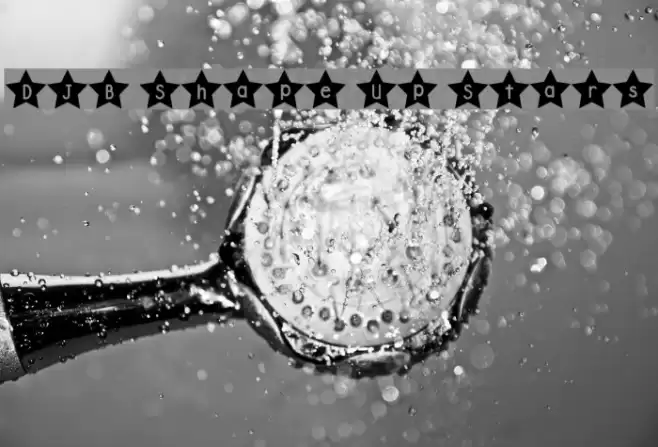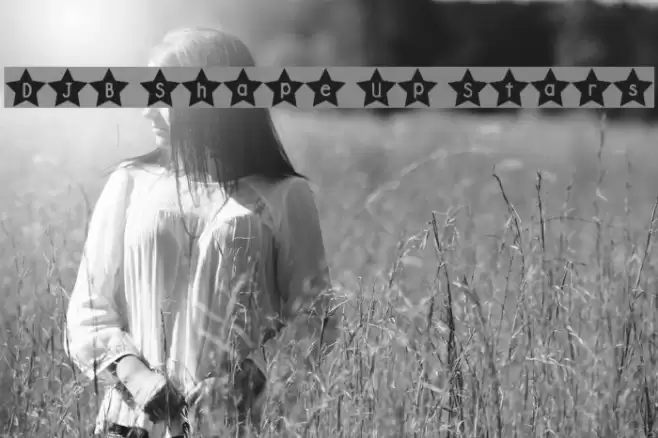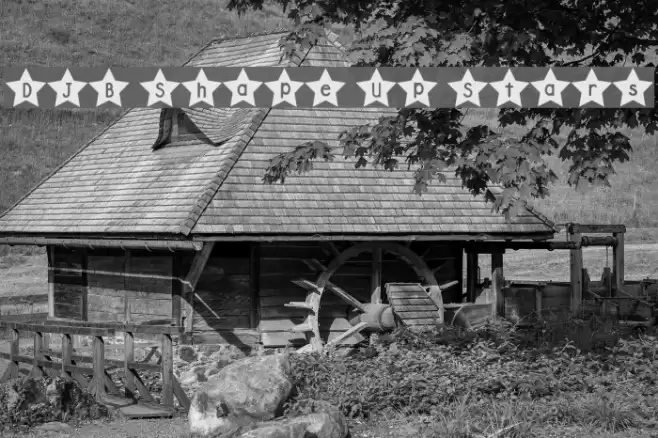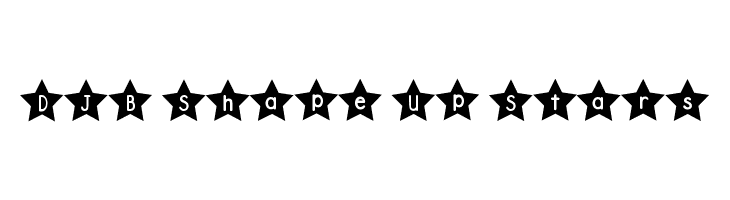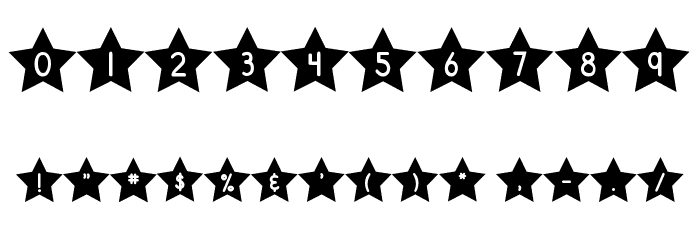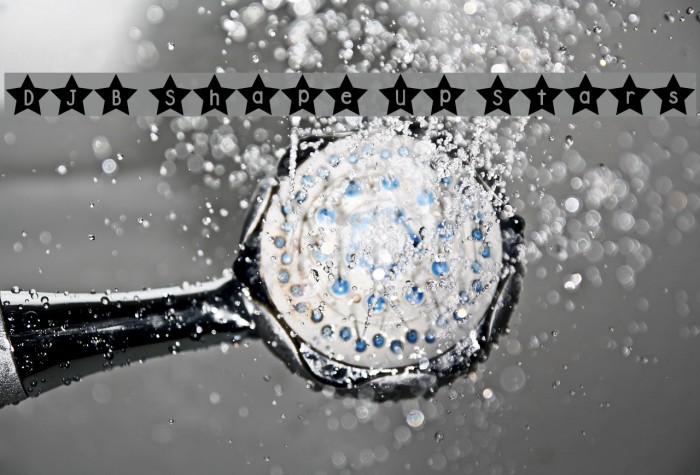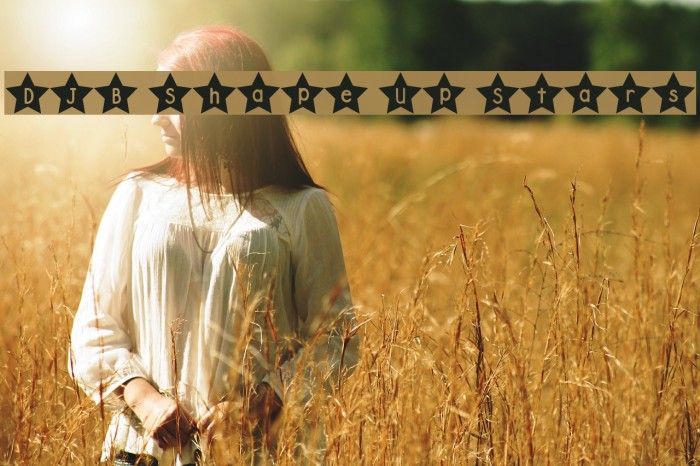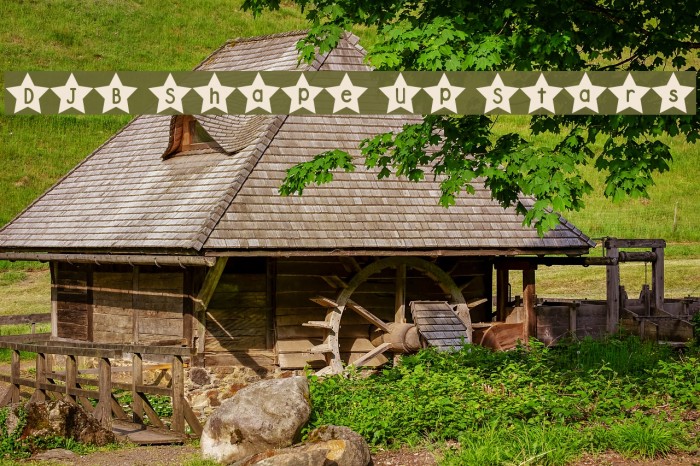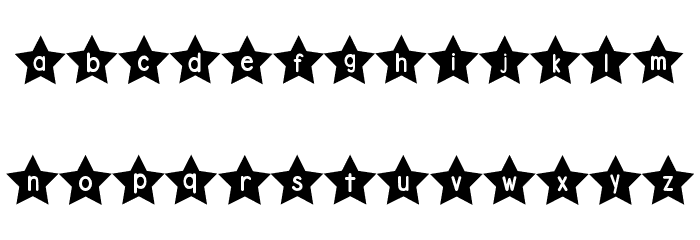
DJB Shape Up Stars
This playful and decorative font features characters enclosed within star shapes, creating a whimsical and eye-catching design. Each letter and number is centrally placed within a bold, five-pointed star, making it ideal for projects that require a fun and engaging aesthetic. The font maintains consistent sizing and alignment, ensuring readability despite its decorative nature. The boldness of the stars contrasts with the simplicity of the characters, providing a unique visual appeal. This font is perfect for creative projects that aim to capture attention and convey a sense of fun and excitement.
A playful font with characters inside bold star shapes, perfect for decorative use.
- Proposed Projects: Ideal for children's party invitations, playful branding, event posters, and educational materials.
- Contrast: High
- Overall Style: Decorative
- Use Case: Headlines, Logos, Posters